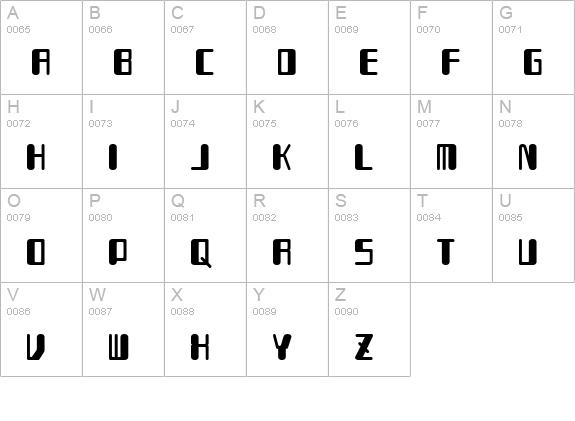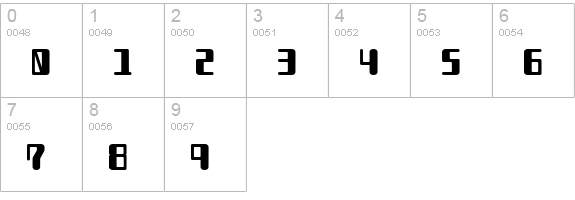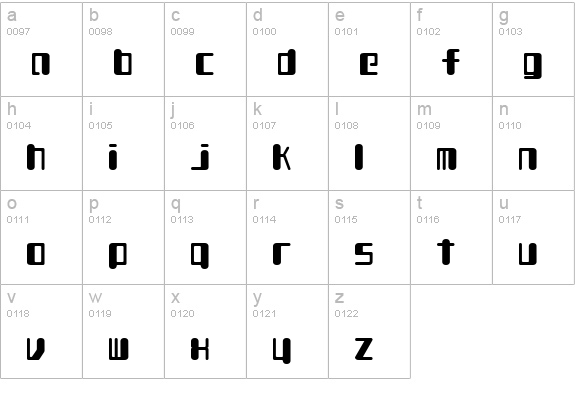
The TYPEOUT2097 ALP font is a stunning display font that exudes a futuristic and bold vibe. With its sleek and sharp letterforms, this font is perfect for creating eye-catching designs that demand attention. Each character is meticulously crafted with precision, showcasing a unique combination of geometric shapes and intricate details. The TYPEOUT2097 ALP font is not only visually captivating but also highly versatile. It can be used for a wide range of design projects, including logos, headlines, posters, and more. Its modern aesthetic adds a touch of sophistication to any design, making it a go-to choice for designers looking to make a statement. One of the best features of the TYPEOUT2097 ALP font is that it is available for free. Yes, you read that right! This amazing font can be freely downloaded from FontsMarket.com, a reputable online platform for fonts. This means that you can enjoy the benefits of this unique typeface without spending a dime. Whether you're a professional designer or a passionate hobbyist, the TYPEOUT2097 ALP font offers endless possibilities for creative expression. Its bold and futuristic style will undoubtedly make your designs stand out from the crowd, leaving a lasting impression on your audience. Don't miss out on this incredible opportunity to enhance your design projects with the TYPEOUT2097 ALP font. Download it for free today at FontsMarket.com and let your creativity soar to new heights.